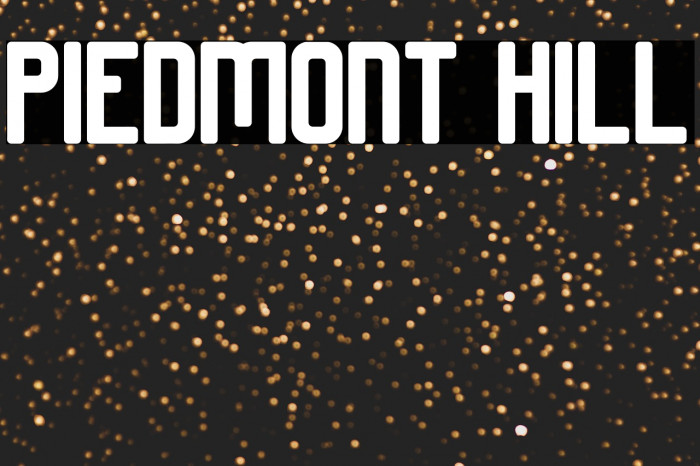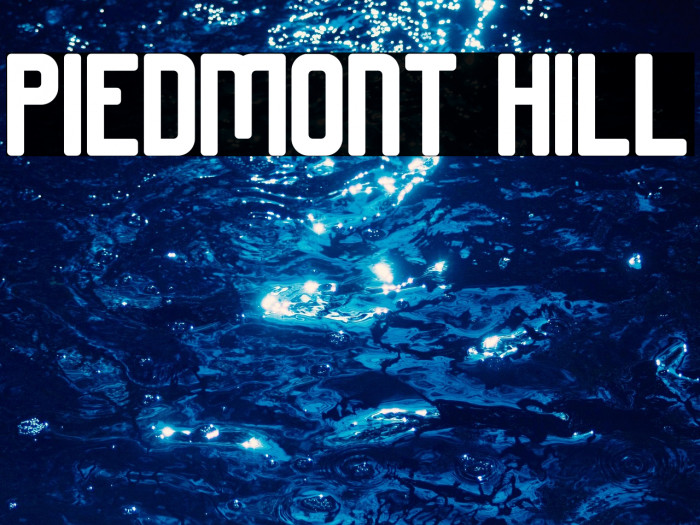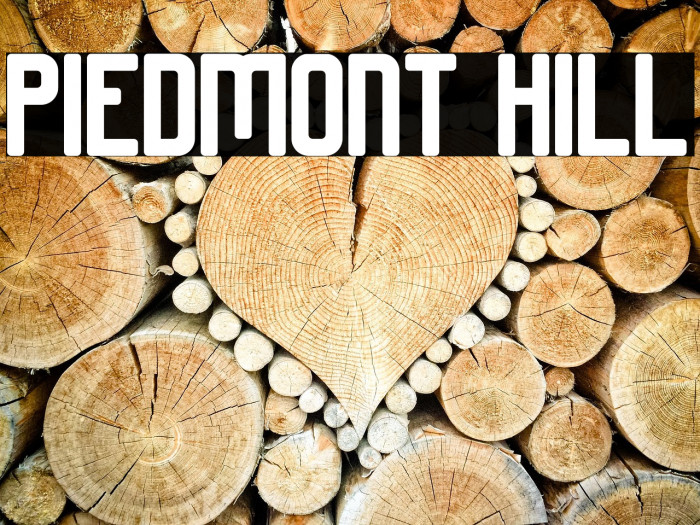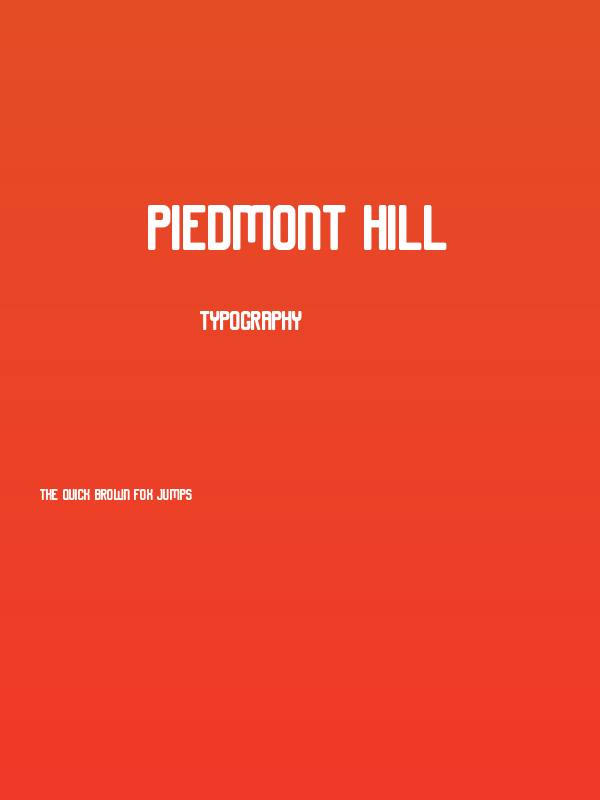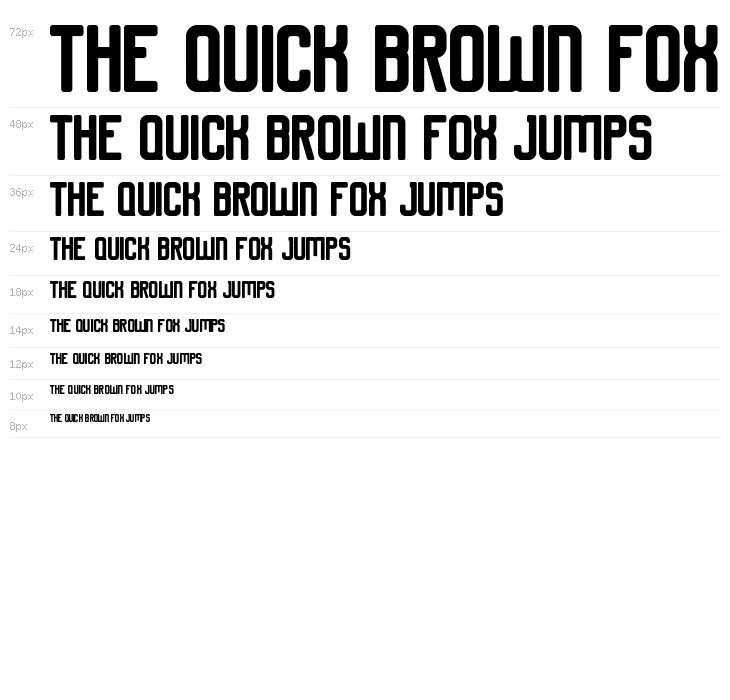
Piedmont Hill Font
Piedmont Hill Description
This font features a bold and geometric design with a strong presence. The characters are uniformly thick, creating a sense of solidity and modernity. The uppercase letters have a squared-off appearance with rounded corners, giving them a unique and approachable look. The lowercase letters maintain the same geometric style, ensuring consistency across the typeface. Numbers are clear and easily readable, while special characters are designed to match the overall aesthetic. The font's boldness makes it suitable for attention-grabbing headlines and impactful designs.
Proposed ProjectsIdeal for branding, posters, headlines, and any design requiring a strong visual impact.